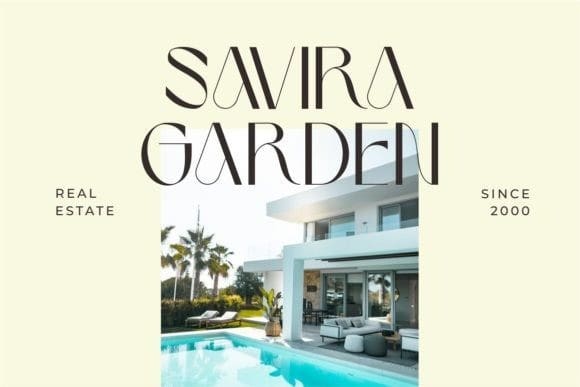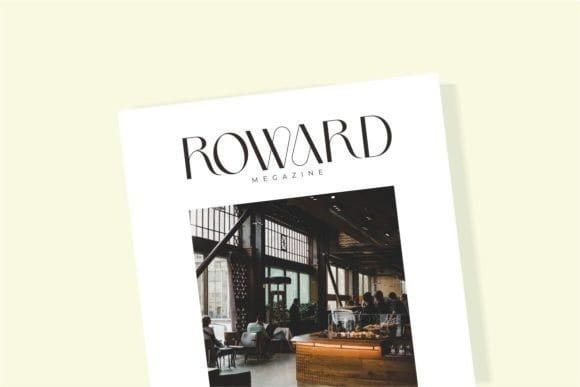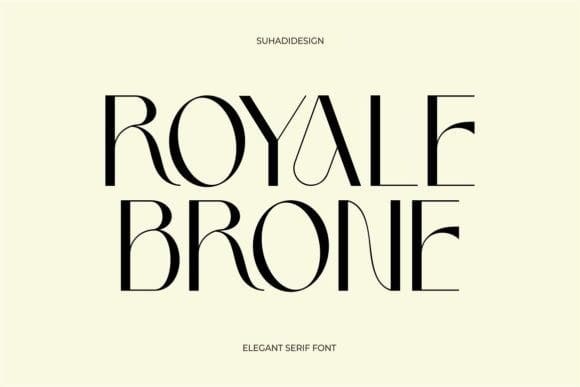
Royale Brone Font
Royale Brone Font is an elegant and bold serif font. Fall in love with its incredibly versatile style and use it to create gorgeous wedding invitations, beautiful stationary art, eye-catching social media posts, and much more!